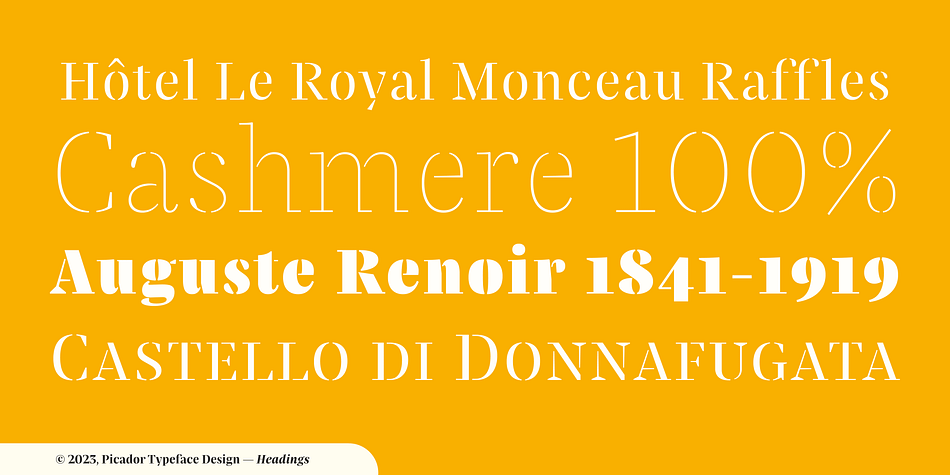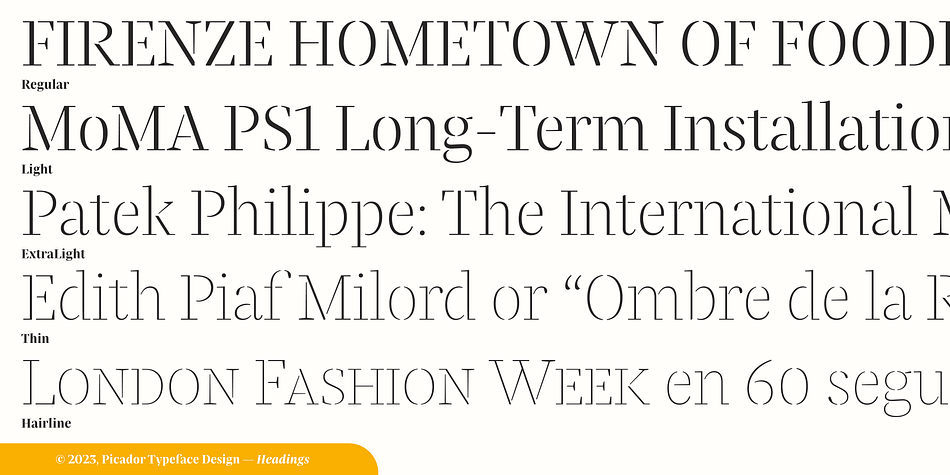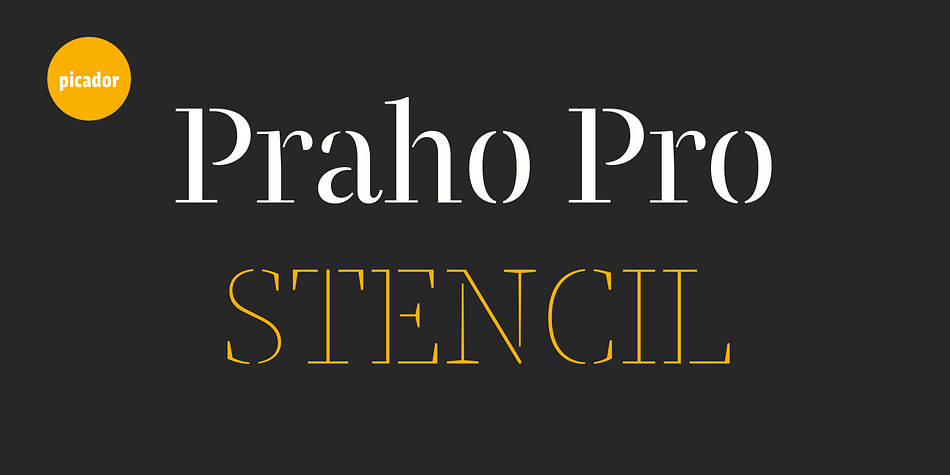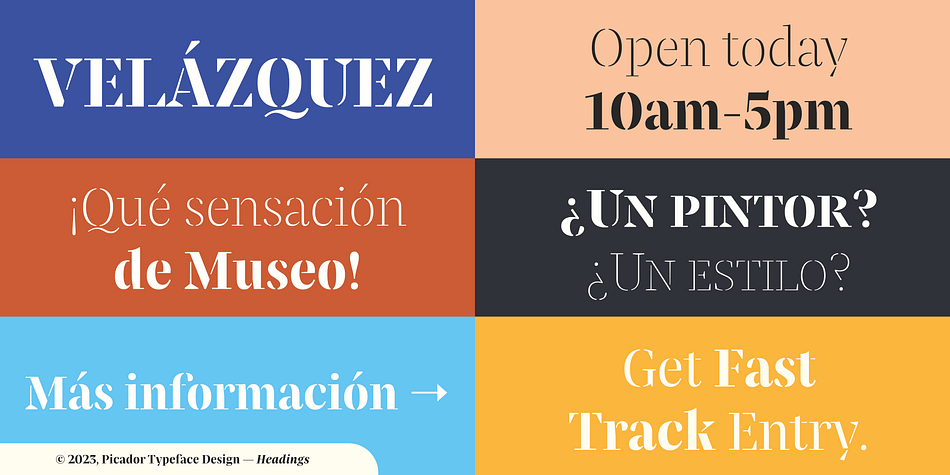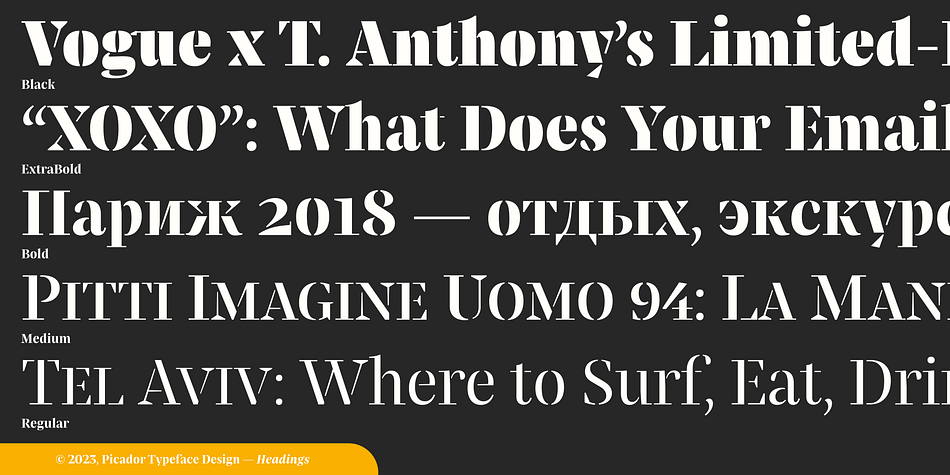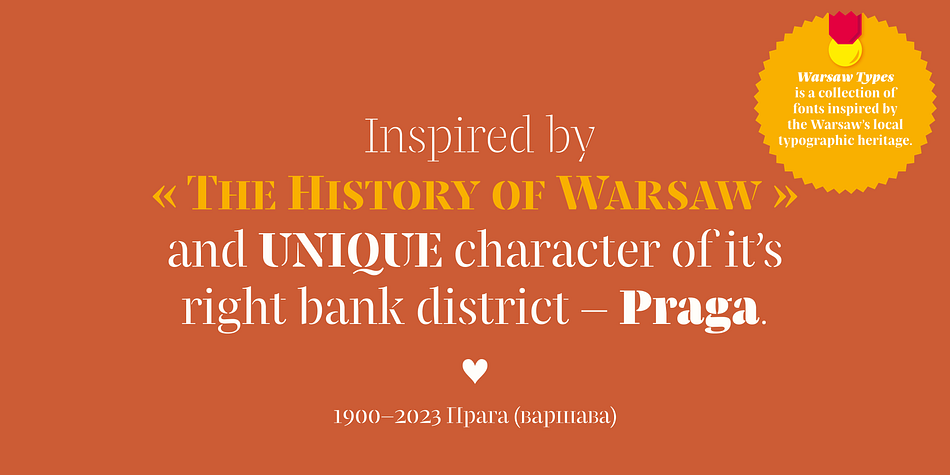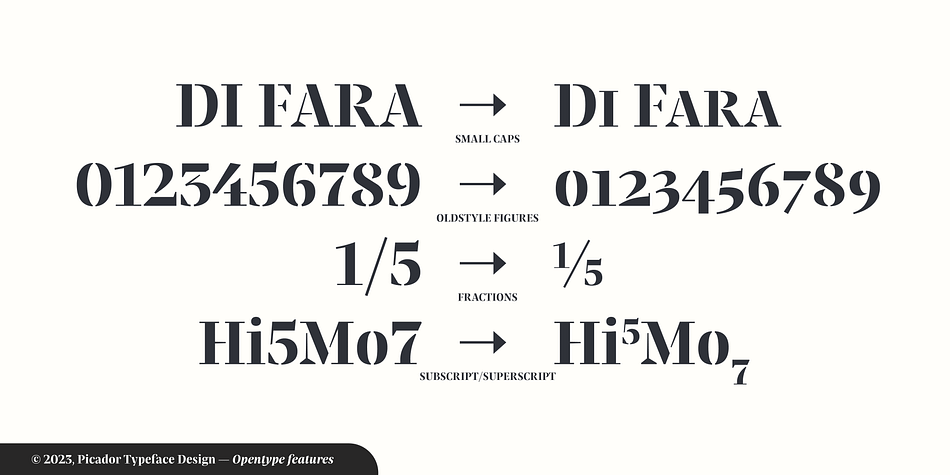
Praho Pro Stencil
Designed by Maciej Włoczewski, Praho Pro Stencil is a serif and stencil font family. This typeface has nine styles and was published by Maciej Włoczewski.
Praho Pro is a part of Warsaw Types – a project based on Warsaw’s local typographic heritage. The project, presented at the Museum of Praga, is a collaboration of 12 young Polish typographers. Praho Pro Stencil is a multilingual family inspired by the unique, historical character of Praga district of Poland’s capital - Warsaw. High contrast, thin serifs, sharp terminals and large x-height are key features for distinctive headlines. Now available as a stencil version!